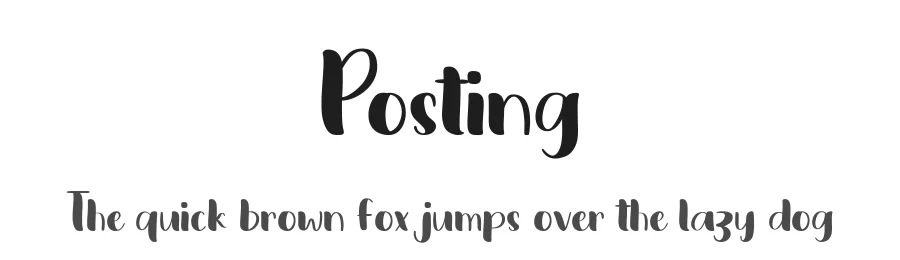
About Little Funny Script Font
Little Funny is a fun handmade font designed for cards, t-shirt designs, quote designs, children's books...
Decorative typeface that will bring you a positive vibe from feeling happy.
It comes with uppercase letters, lowercase letters, basic characters, standard numbers and punctuation, alternatives.
Little Funny Script Font is a script font that shines as a display or heading face. Pair it with a clean sans-serif or serif font for body text β the contrast creates a clear hierarchy while the two styles stay balanced and easy to read.